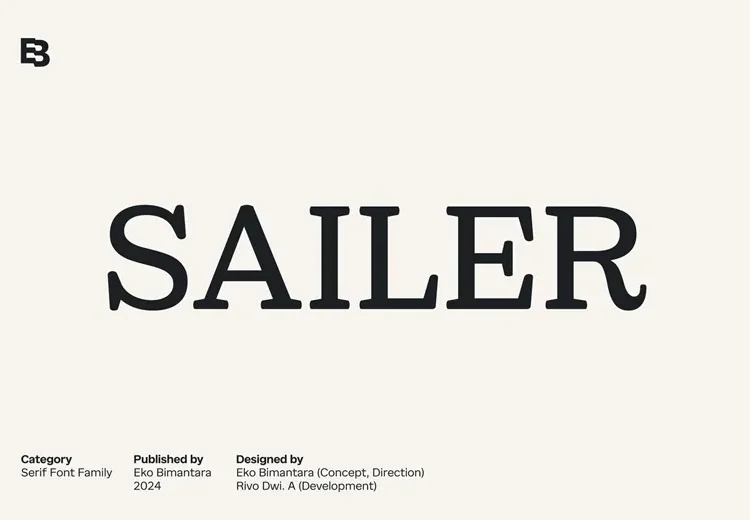
Sailer Font Family
Sailer Font Family is a captivating serif typeface that beautifully blends western charm, romance, and retro elegance. Its design reflects a unique combination of boldness and classic style, featuring tight kerning and soft corners that lend a playful character to any project. With seven versatile styles ranging from Thin to Extra Bold, along with corresponding italic options, Sailer is equipped to meet the diverse needs of various design applications, while also supporting most Latin-based languages.
This font is particularly well-suited for display purposes, making it an excellent choice for large headings, logos, and brand identities. Its striking aesthetic enhances websites, product packaging, and other layout designs, ensuring that your message stands out. The vintage appeal of Sailer, coupled with its soft classic look, makes it ideal for both text and web fonts, adding a personal touch to every artistic endeavor.
Incorporating Sailer into your design work infuses a sense of nostalgia while maintaining a contemporary edge. Its distinctive characteristics not only capture attention but also create a warm and inviting atmosphere that resonates with viewers. Whether you are designing for a modern brand or a retro-themed project, Sailer offers the flexibility and personality needed to make a lasting impression.